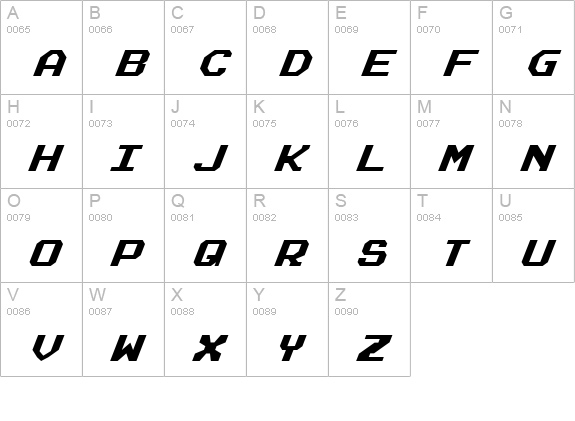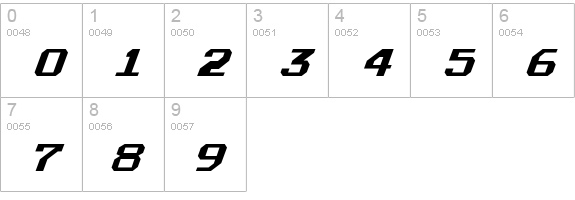
Realpolitik Italic is a distinctive, italic variant in the Realpolitik typeface family \xE2\x80\x94 well suited to design and typography projects.
Realpolitik Italic font is a modern and sleek typeface designed for those seeking a sophisticated and contemporary look. Its clean lines and sharp angles give it a professional and polished appearance, making it perfect for a wide range of projects, from branding to editorial design. With its italic style, Realpolitik adds a touch of elegance and flair to any text, making it stand out and catch the eye of the reader. Whether you're working on a website, a magazine layout, or a business card, this font will add a touch of sophistication to your design. Best of all, Realpolitik Italic font is freely available to download at FontsMarket.com. So why wait? Give your projects a touch of class with this stylish and versatile typeface today!